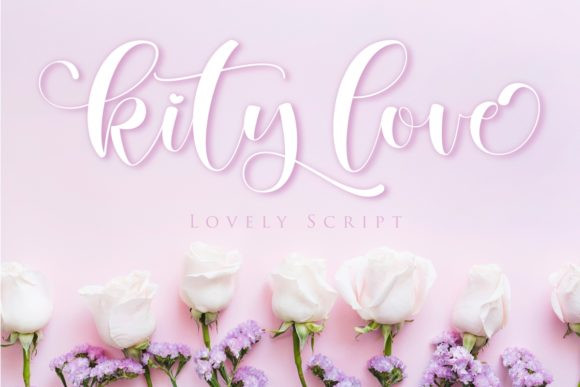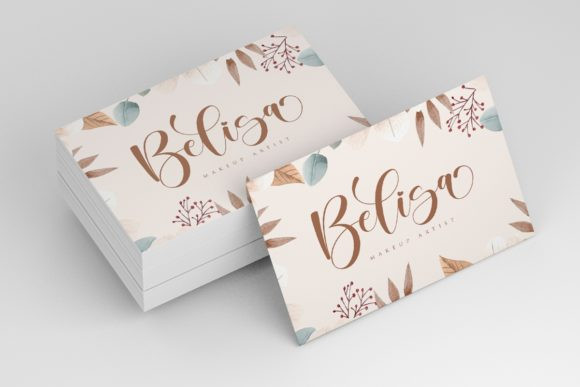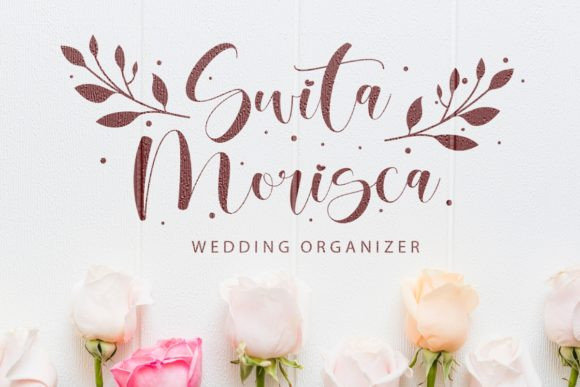
Kity Love Font
Kity Love FontKity Love is a dazzling handwritten font. This versatile script font has a wide spectrum of applications ranging from greeting cards to headlines and is guaranteed to add a romantic feel to your next project.